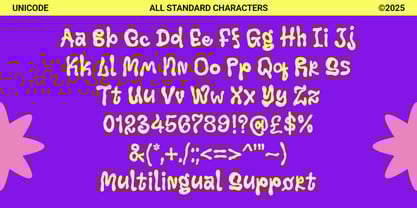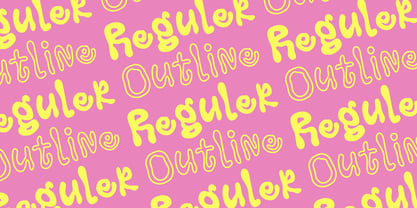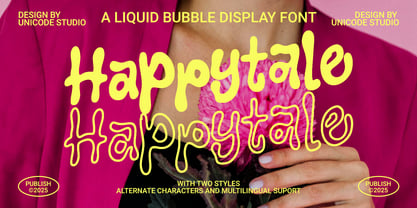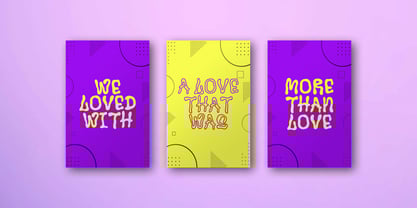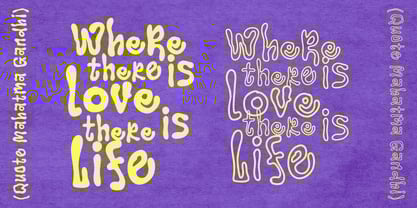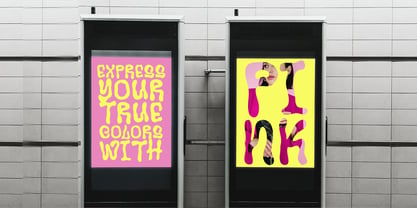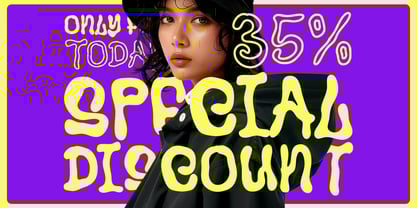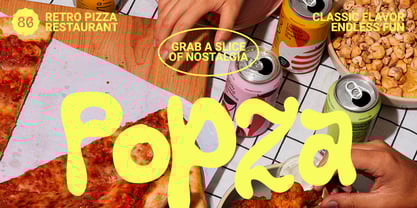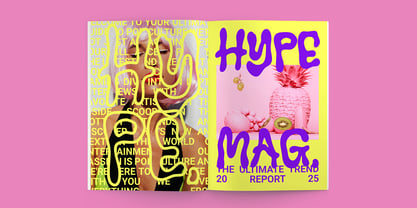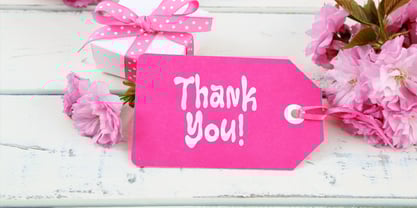
Happytale
by Unicode Studio
The Happytale Font Family was designed by BOYHAQI . and published by Unicode Studio. Happytale contains 2 styles and family package options.
Happytale is a playful liquid bubble display font that brings fun and creativity to your designs. Its bold, rounded shapes and flowing curves make it perfect for cheerful projects, children’s themes, branding, packaging, posters, and eye-catching headlines. The font is available in two distinct styles (Regular and Outline), providing flexibility with alternate characters and multilingual support to accommodate different languages and design needs. With its joyful and organic appearance, Happytale adds a touch of charm and whimsy to any creative project.